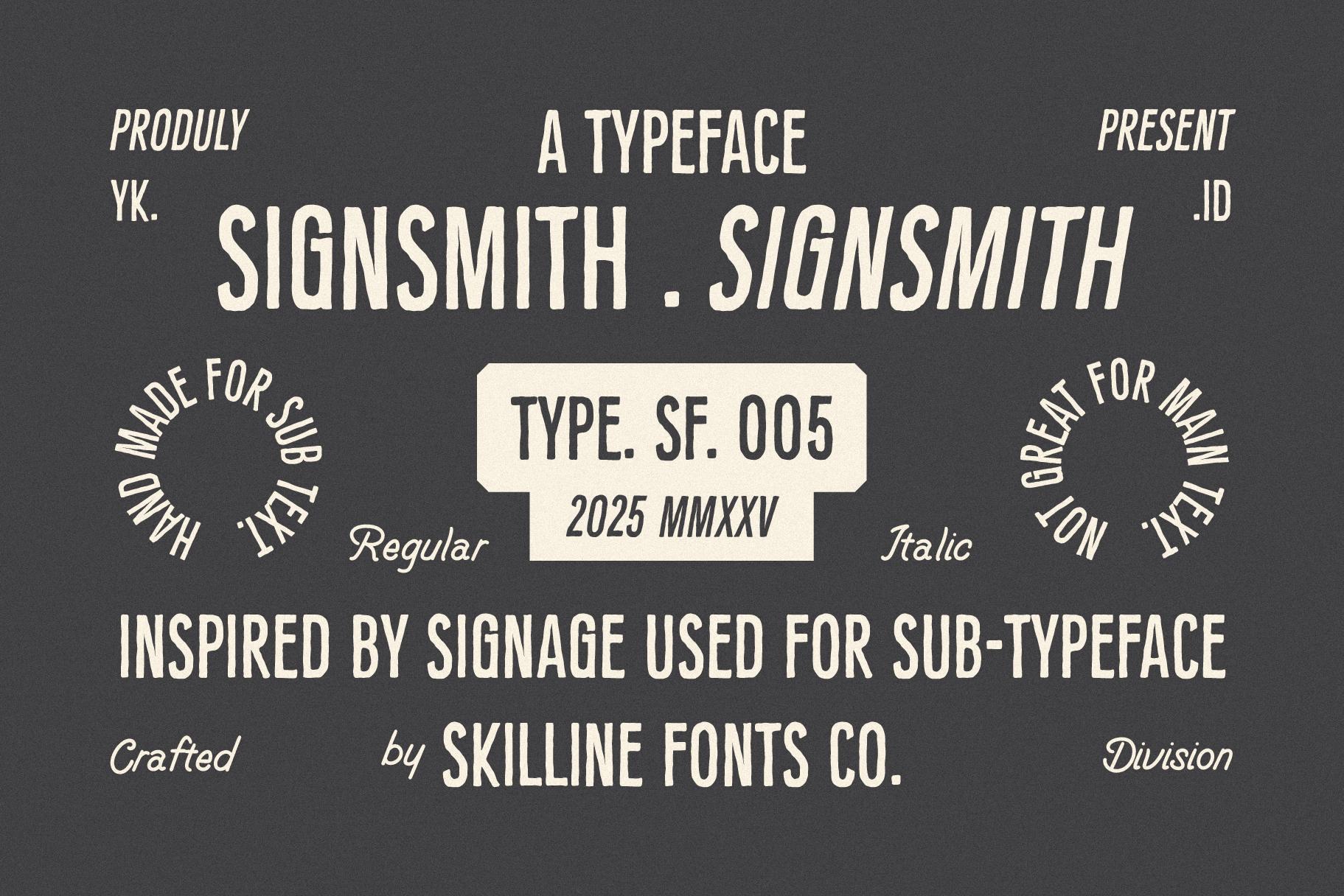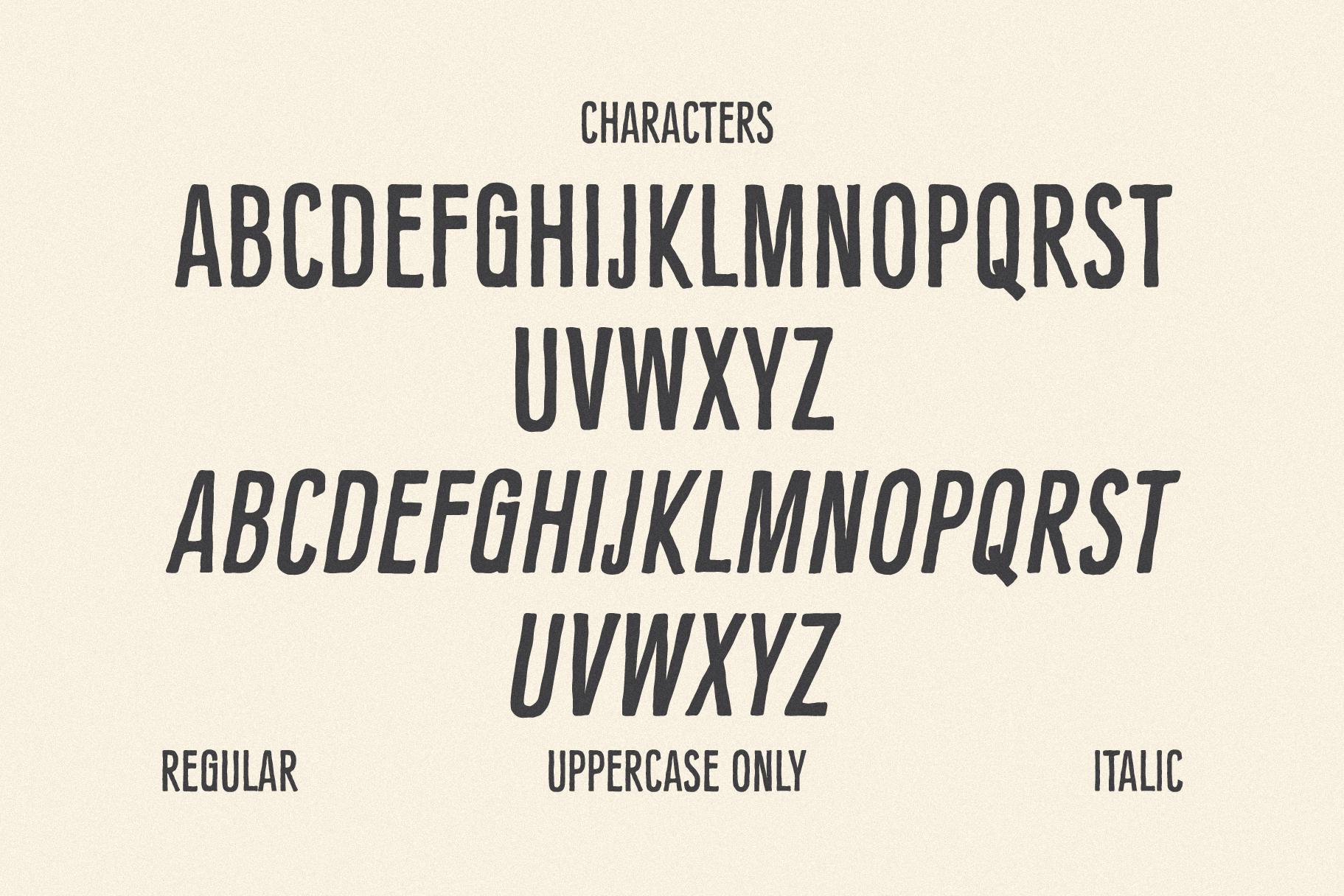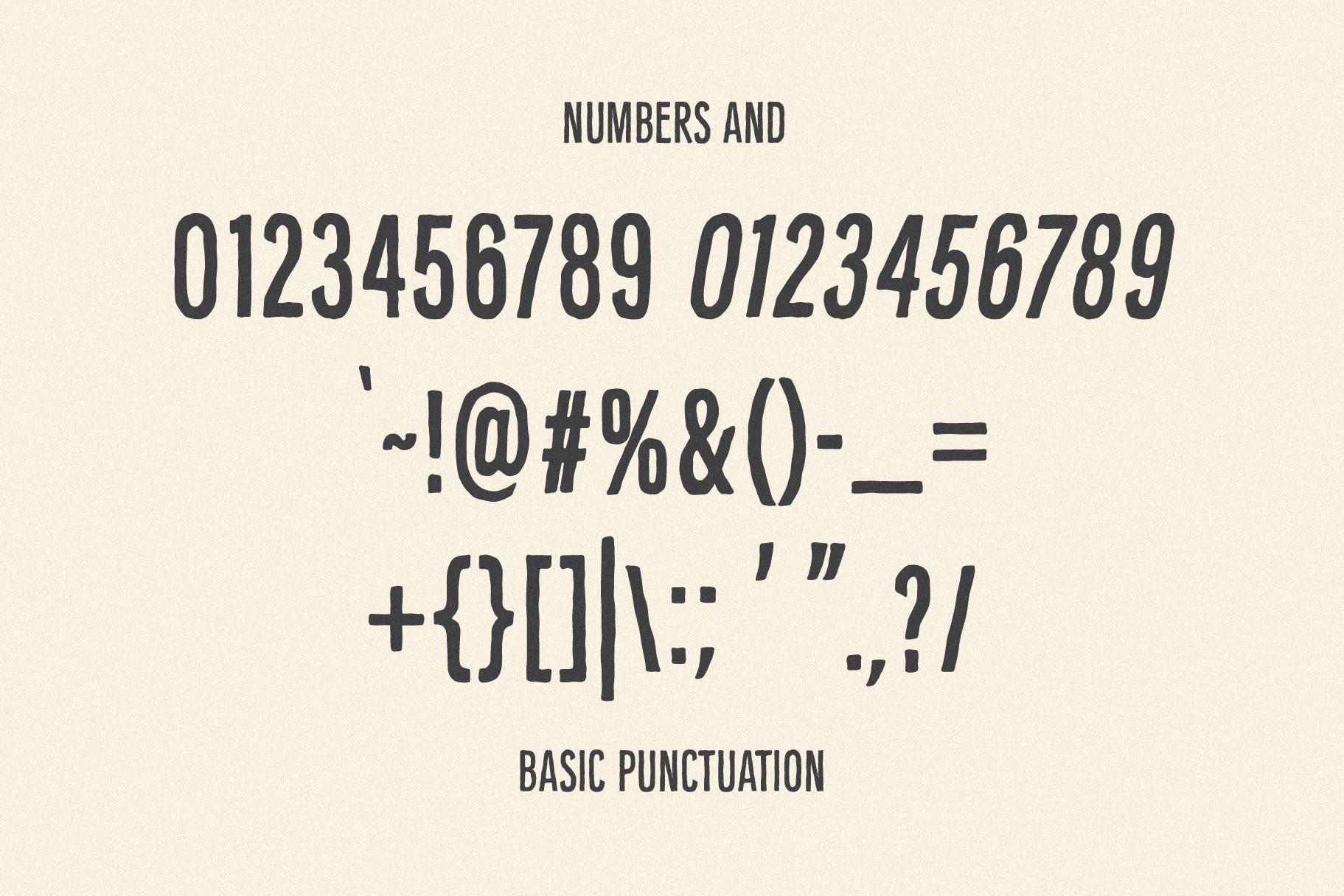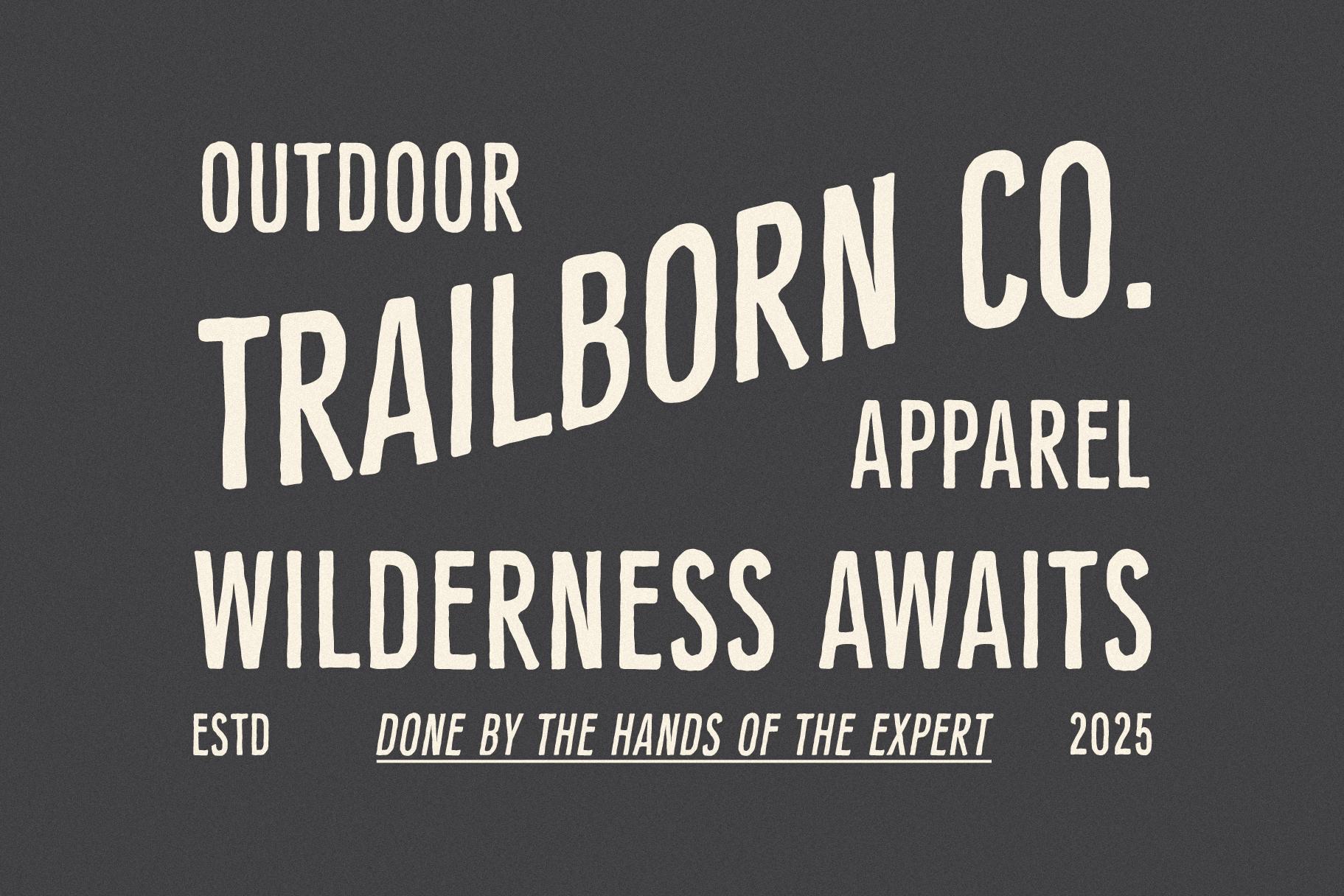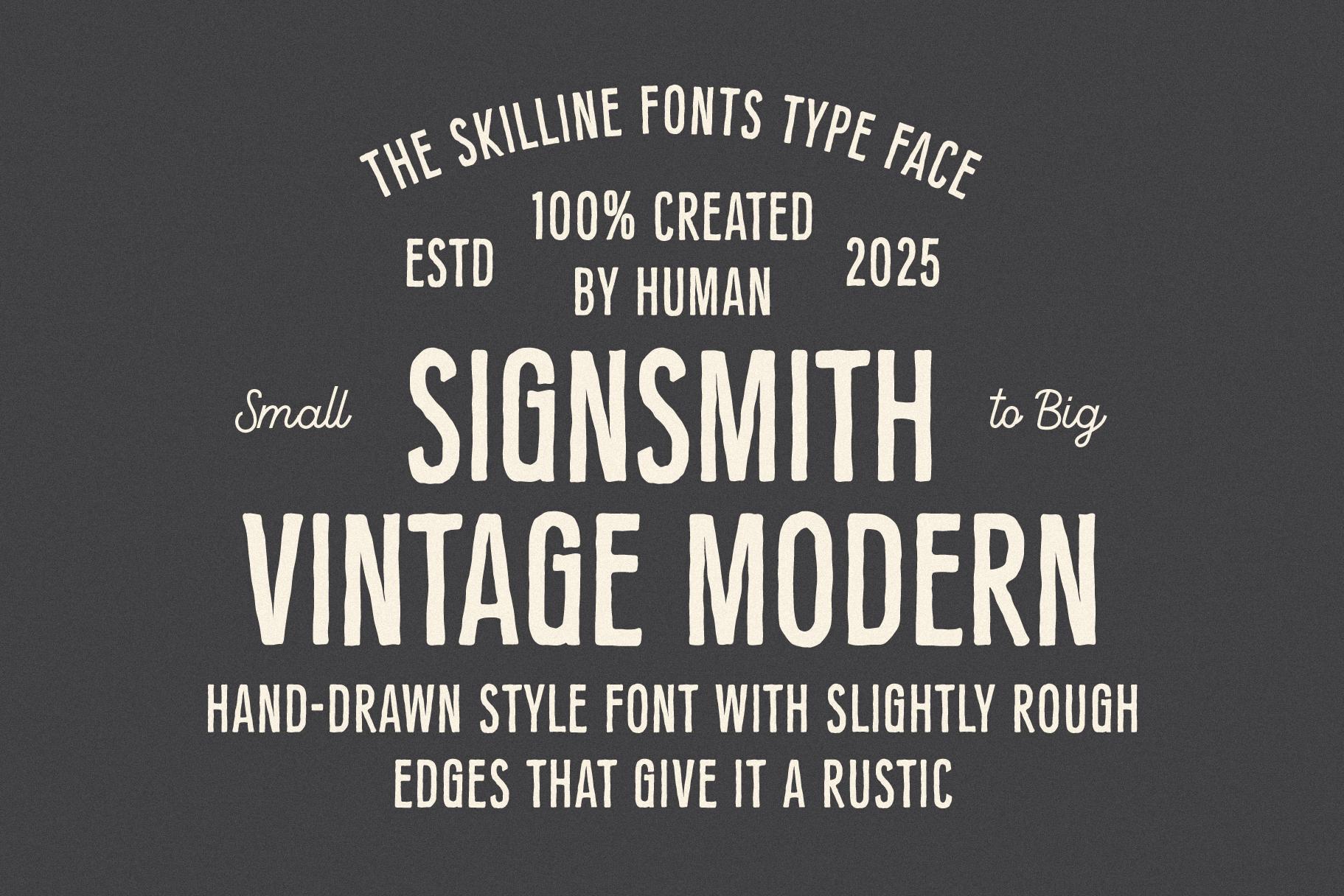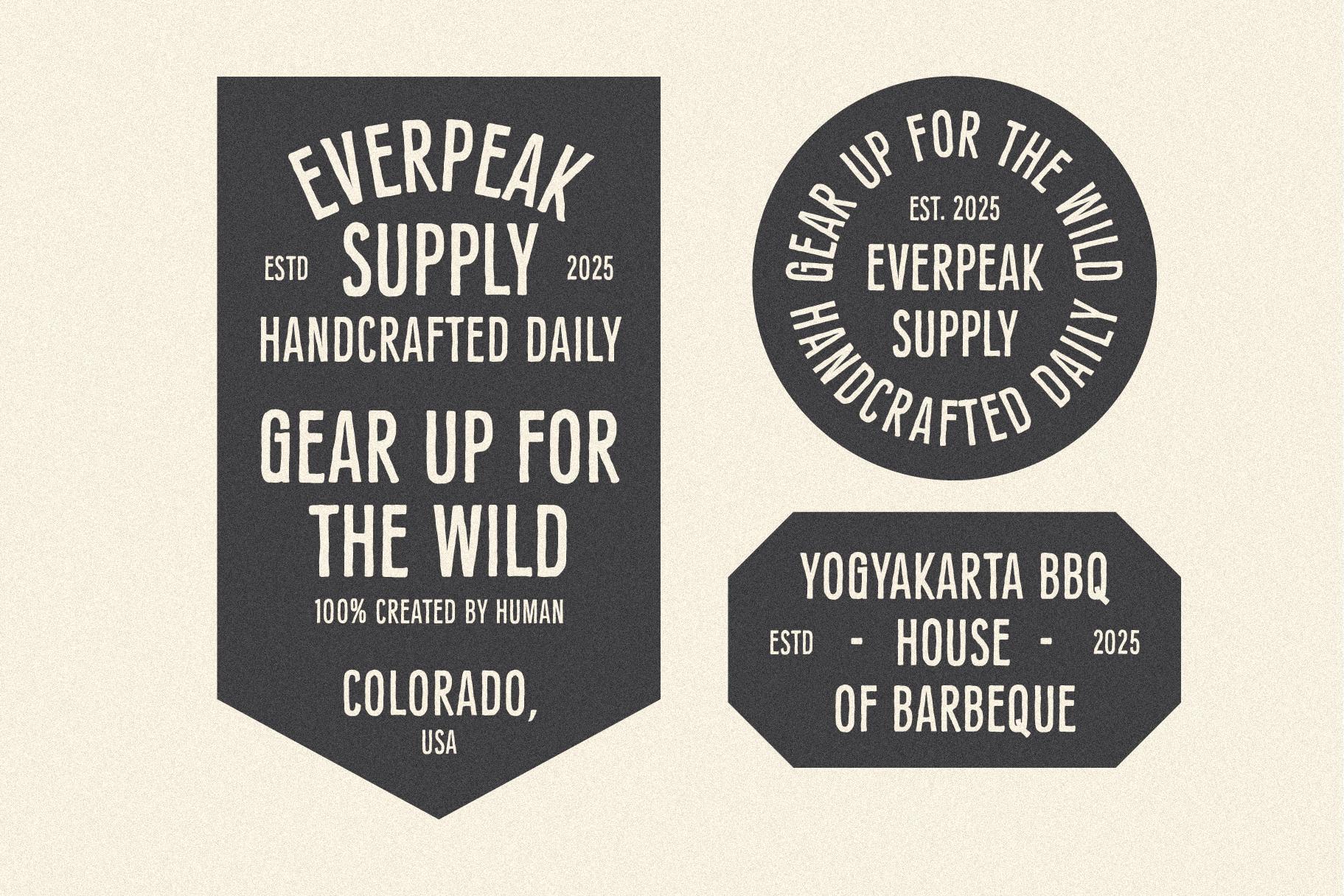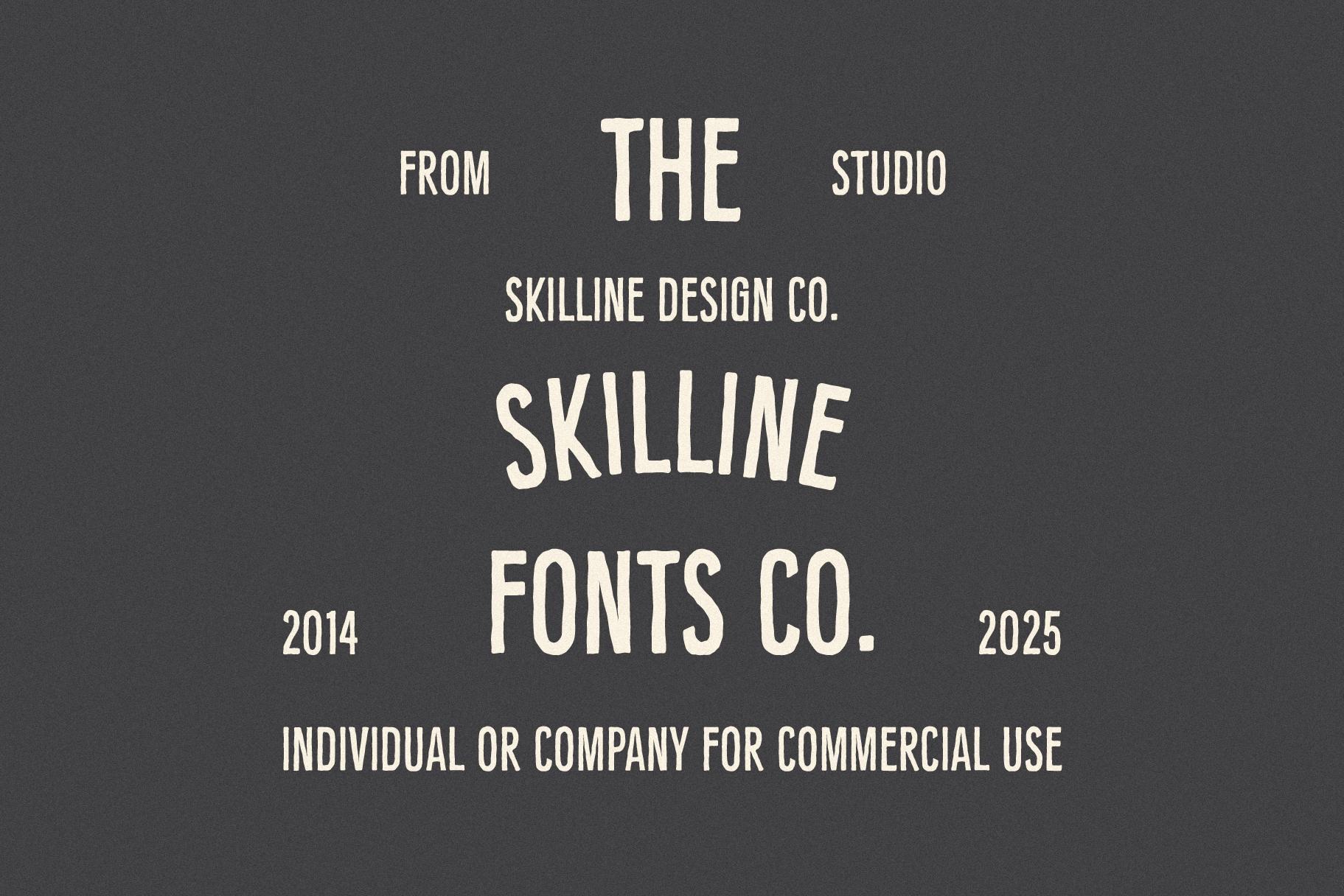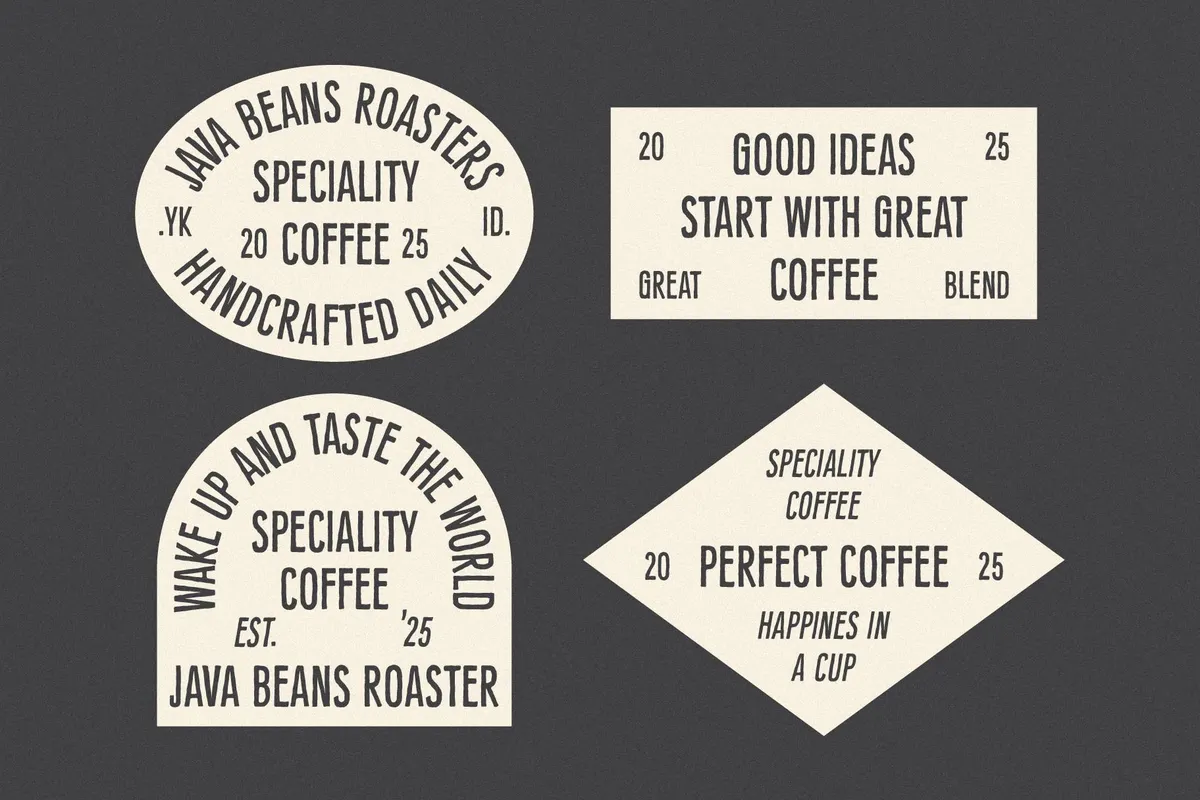
Signsmith - Condensed Vintage Font
SFC-Signsmith
Signsmith is a condensed hand-drawn display typeface inspired by vintage sign painting traditions. Its bold strokes, handcrafted texture, and condensed proportions make it a perfect choice for designs that need a balance of rugged authenticity and strong readability.
Available in both regular and italic styles, Signsmith is built to bring character to modern branding with a nostalgic edge. It works beautifully across logos, posters, apparel graphics, packaging, signage, and editorial layouts, delivering a striking look that feels both handcrafted and professional.